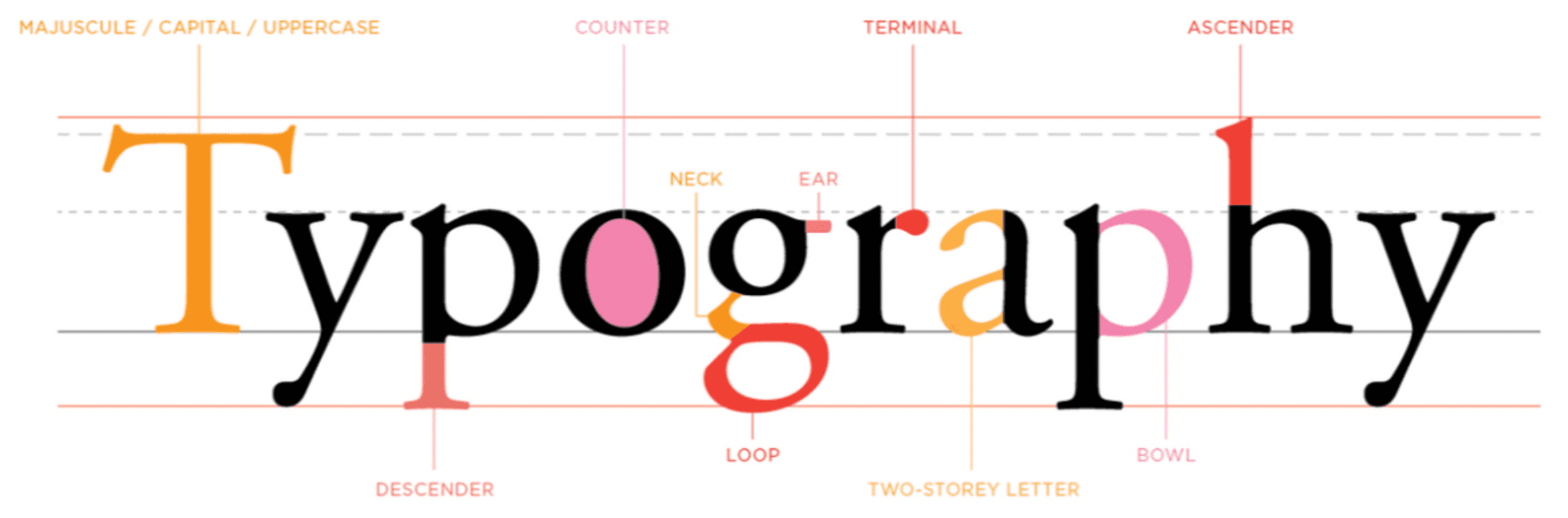
TLDR: Developers, the fonts that you use matter! They help you find bugs and lessen eye strain. Why do Fonts Matter? Did you know that there's a whole industry revolved around fonts? Typeface and typography are some terms used in this space, and th...
Personally, I use JetBrains Mono for a 2 years and these ligatures are sexy